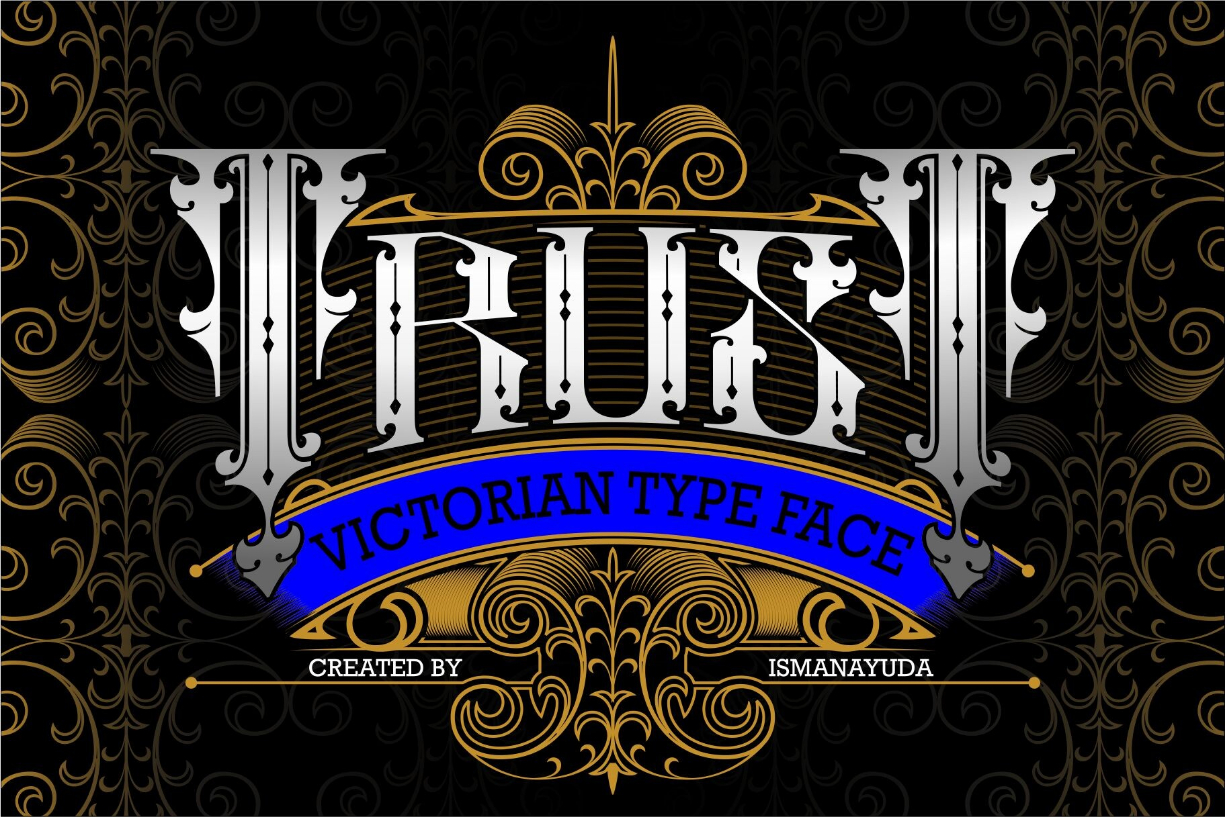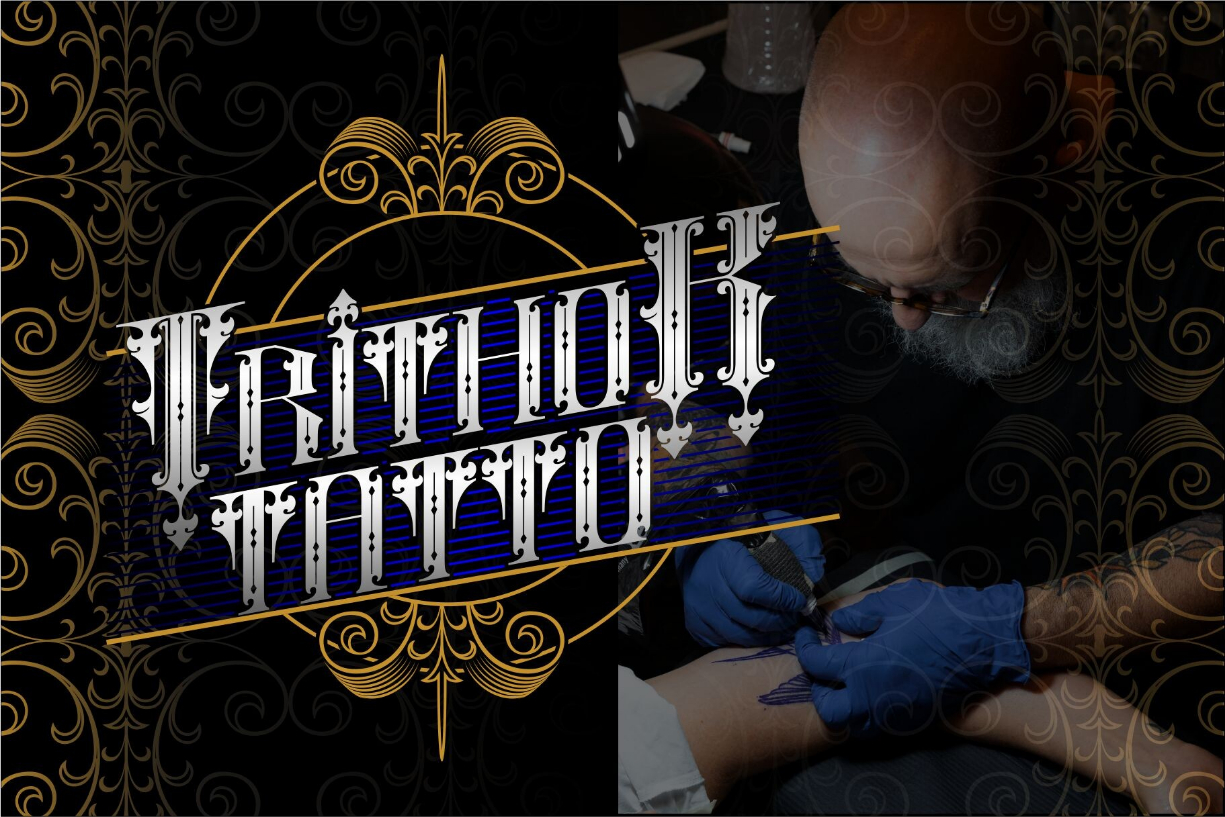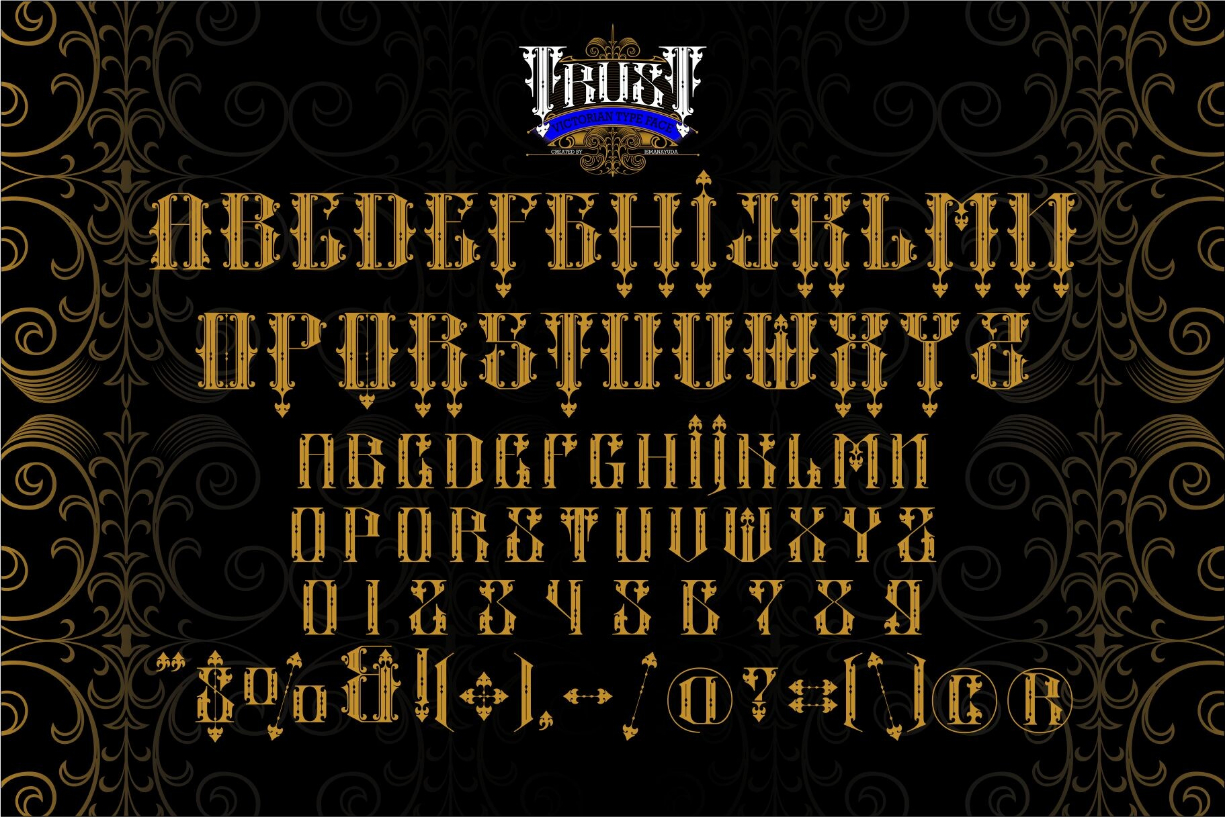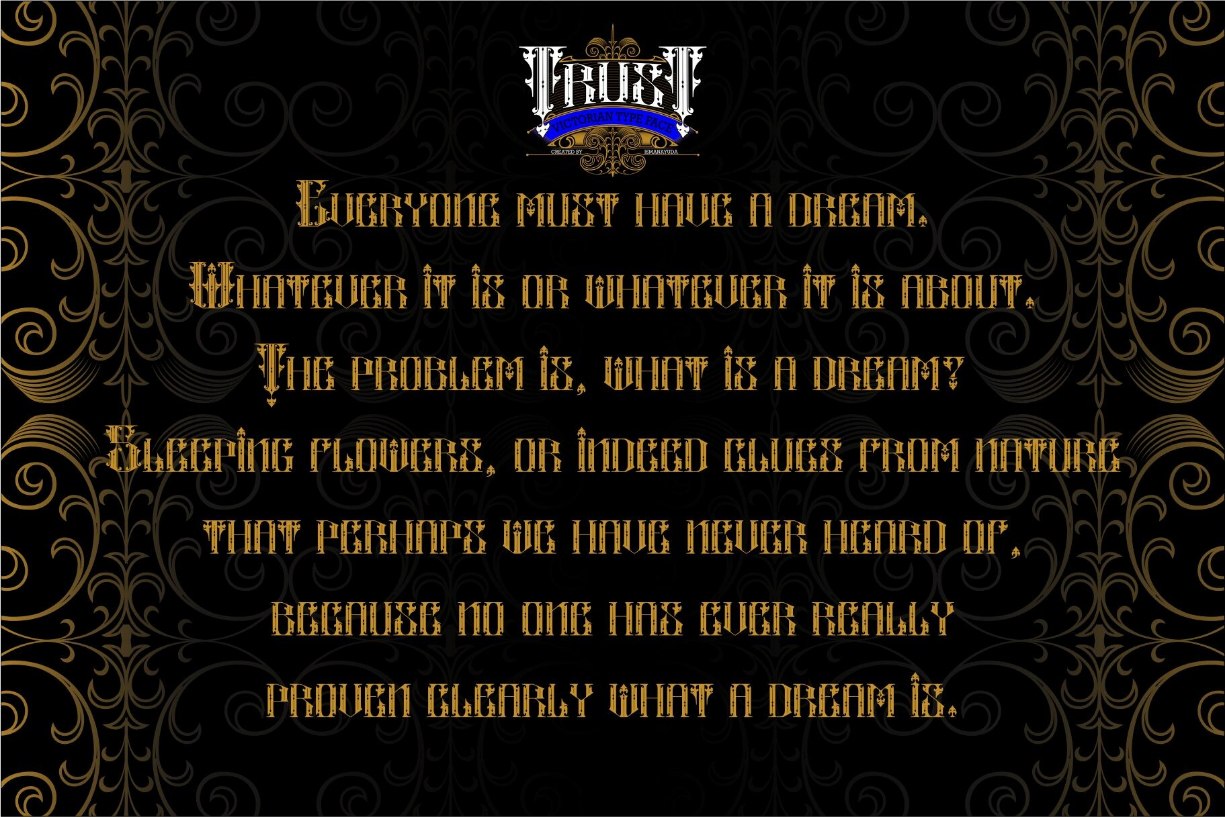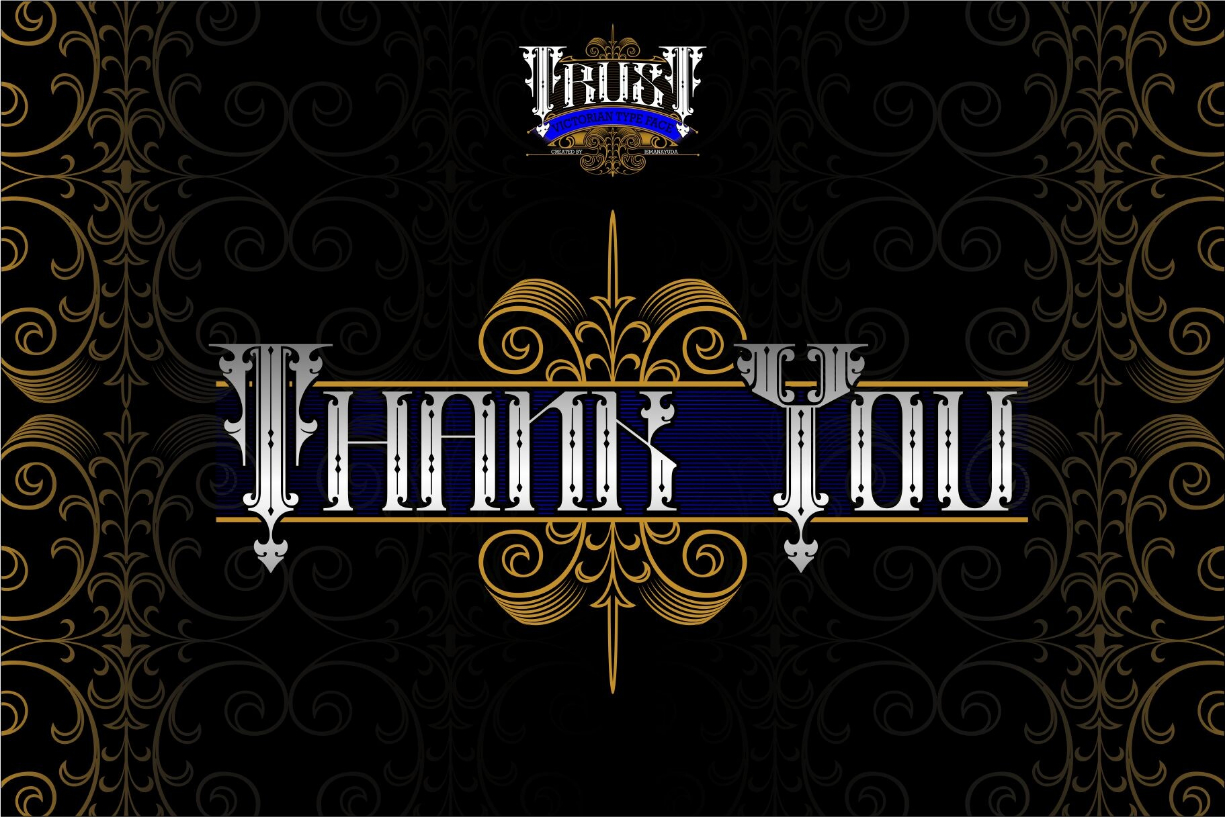
Trust Font
About Trust Font
Trust is an elegant Blackletter Victorian font that exudes timeless charm. Its intricate, ornate design adds a touch of vintage sophistication to your projects. Perfect for giving your text a sense of trustworthiness and classic appeal.